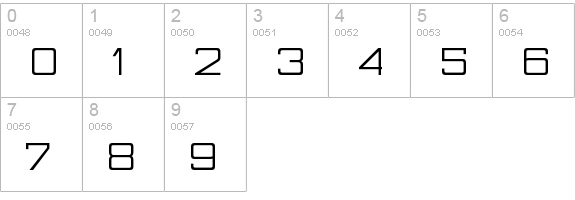
NesobriteSe-Regular Font Details
NesobriteSe-Regular is the standard, neutral variant in the NesobriteSe typeface family \xE2\x80\x94 well suited to general body text, paragraphs, and standard typographic work.
NesobriteSe-Regular font is a versatile and modern typeface that exudes elegance and sophistication. With its clean lines and balanced proportions, this font is perfect for a wide range of design projects, from branding to editorial layouts. The crisp and clear letterforms make text easy to read, while the subtle curves add a touch of personality. What sets NesobriteSe-Regular font apart is that it is available for free download at FontsMarket.com. This means that you can easily access this high-quality font without any cost, making it a valuable addition to your font collection. Whether you're a designer looking for a new typeface to enhance your projects or a student in need of a stylish font for your presentations, NesobriteSe-Regular font is a fantastic choice that won't break the bank. Download it today and elevate your designs with this elegant and timeless typeface.